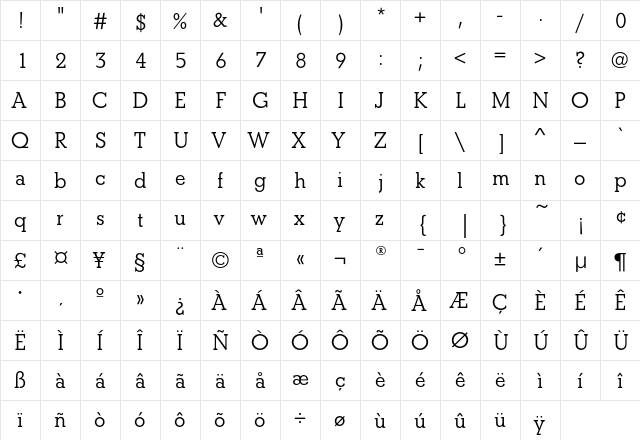
BetonEF DemiBold Font Preview
BetonEF DemiBold
Design Context for BetonEF Typeface
BetonEF is a composed and adaptable typeface that performs quietly and consistently across a wide range of design contexts. The heavy weight commands attention and anchors typographic hierarchies.
Pro Tip: Pair BetonEF with a font of contrasting weight or personality to build a more expressive typographic hierarchy.